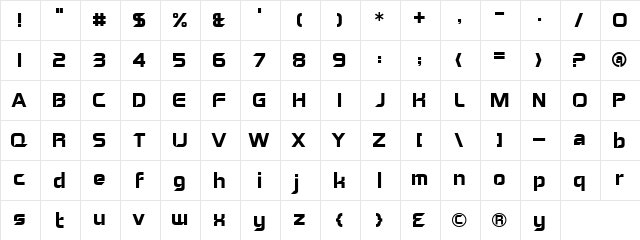
Gayatri Regular
| Foundry | NJ McLellan |
| Designer | NJ McLellan |
Design Context for Gayatri Typeface
Gayatri offers clean, dependable letterforms without strong stylistic allegiance, making it a practical choice for designers who need flexibility.